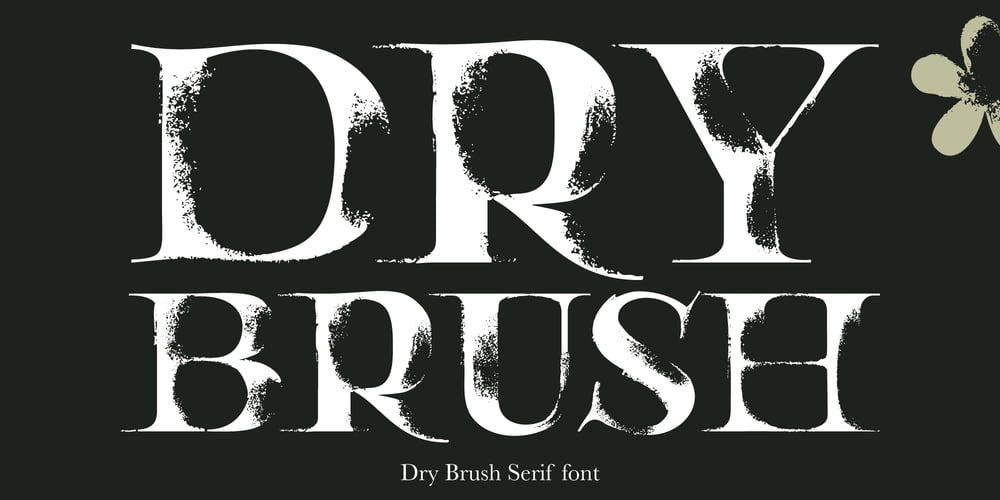
Dry Brush Serif
Dry Brush Serif font
Dry Brush Serif Font Family was designed by Roman Korolev and published by Kaer. Dry Brush Serif contains 1 styles and family package options. I’m happy to present you my new classic style font. It’s a vintage serif font with my brush touches. I used dry strokes with rough edges decoration elements.Perfect if you want to add slight retro style to your project. I designed it for fashion labels, classic headlines, glamour posters, luxury identity, wedding invitations.You will get:* Uppercase glyphs* Numbers and symbols* Multilingual support* Free future updatesPlease feel free to request to add characters you need: kaer.pro@gmail.comThank you!